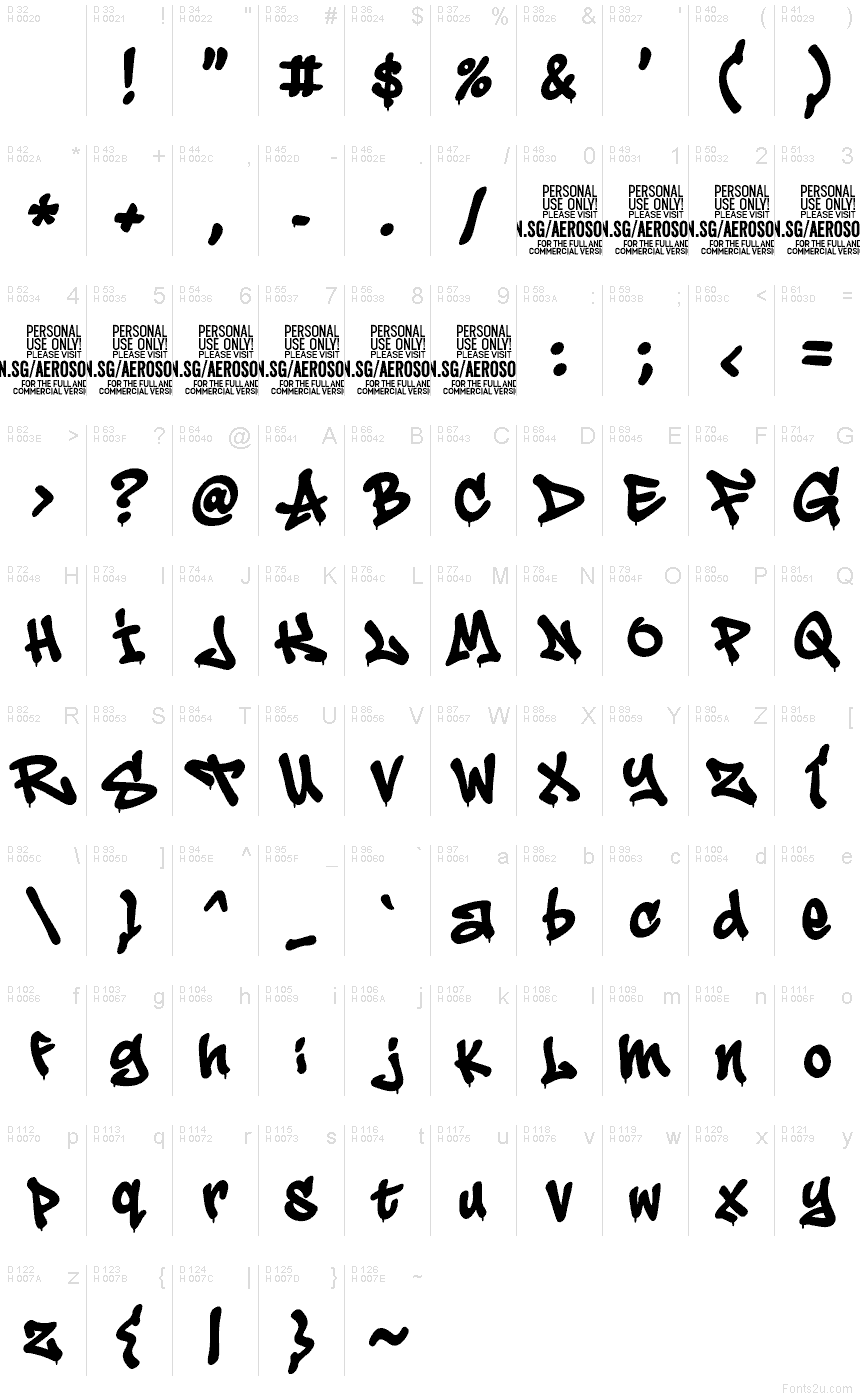
Aerosoldier Drip font by Mans Greback is a free graffiti font. Pulling from the Aerosoldier family’s raw tag energy, the Drip cut lays down inky, weighty strokes that sag and puddle like fresh spray on concrete. The rhythm feels fast and hand-thrown, with chunky connections and paint-run tails that add grit without losing legibility.
Using Aerosoldier Drip, you get instant street cred for streetwear logos, skate and BMX flyers, hip‑hop cover art, festival posters, nightlife promos, and sticker packs. The thick, wet-look texture holds up at large sizes and on textured backgrounds; keep body text in a clean sans to let this free font do the shouting. Scale big, tighten tracking slightly, and let the drips frame your message.